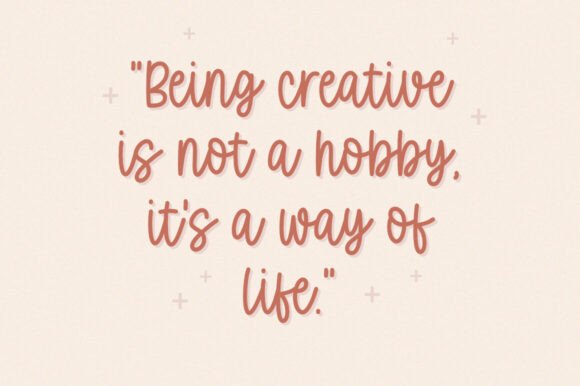
Sweety Charm is a delightful handwritten font that exudes playfulness and warmth. Its smooth, rounded strokes make it ideal for creating cozy, friendly designs. Perfect for invitations, greeting cards, social media posts, branding, and more, this font adds a touch of charm to any project.
Sweety Charm Font